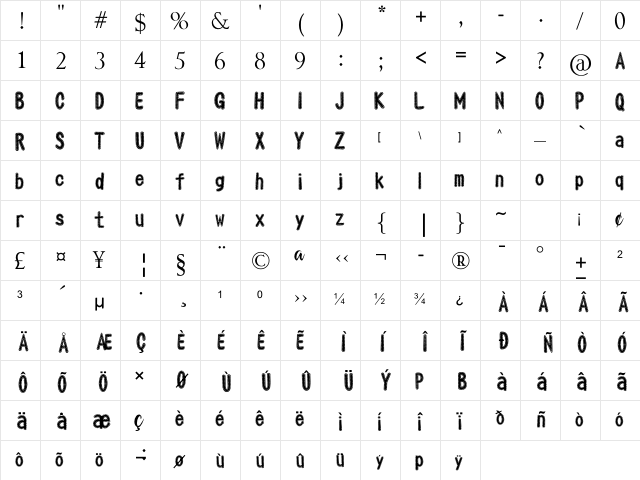
Oneself Bubble Regular
Design Context for Oneself Bubble Typeface
Oneself Bubble has an approachable, lighthearted character — its loose, expressive forms are well-suited to children's content, casual branding, and fun-first design.
Font Pairing: Pairs well with a rounded or humanist sans for body copy, maintaining the friendly tone without relying on Oneself Bubble to carry extended reading.
Pro Tip: Avoid using Oneself Bubble for long passages of text — it works best for headlines, labels, and short calls to action.